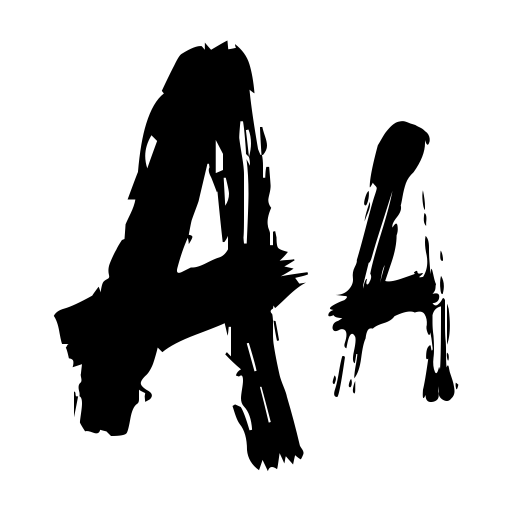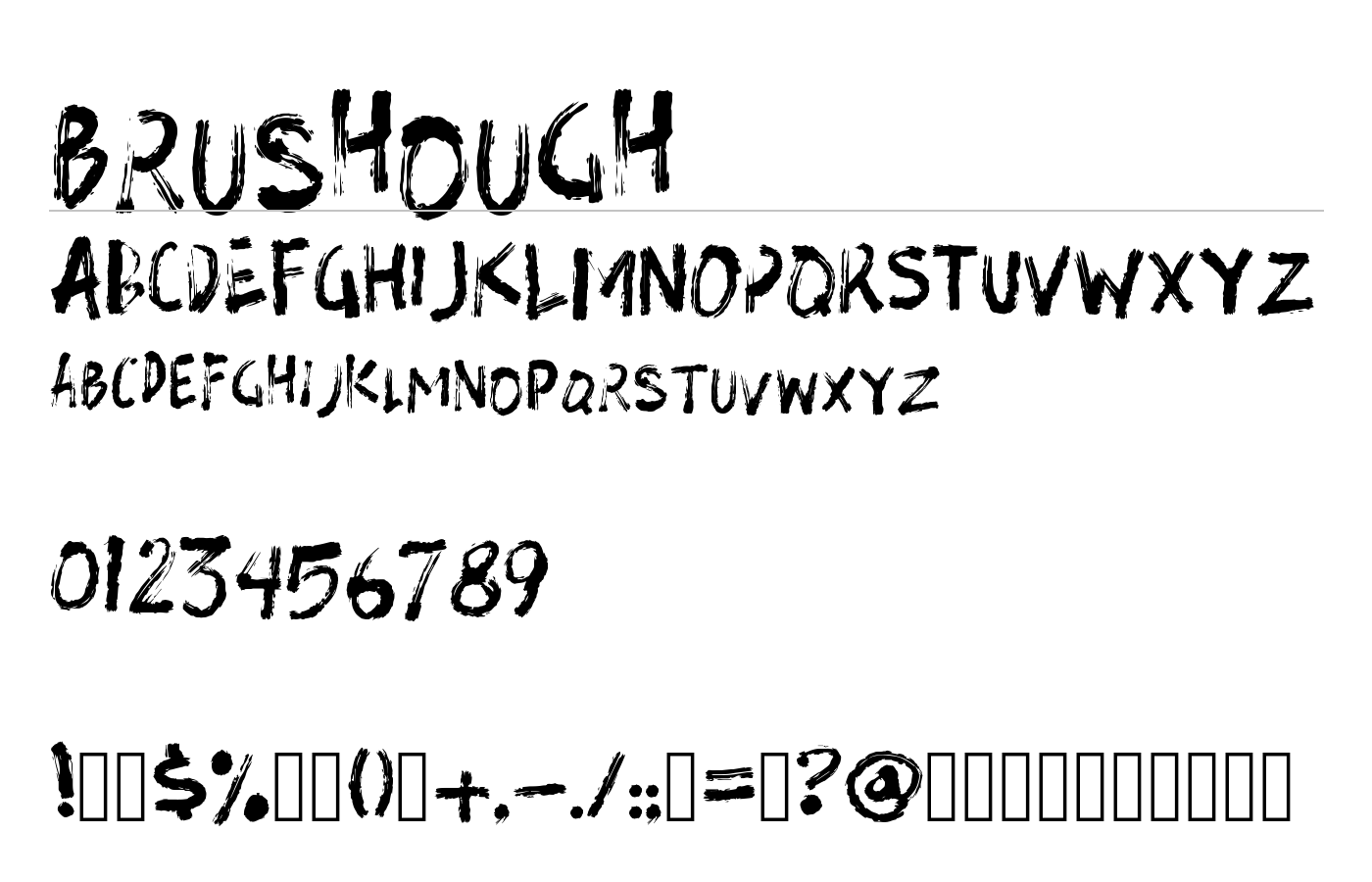
Brushough is a bold, expressive brush script font with a rough, hand-painted texture that brings a raw and artistic feel to any design. Its irregular, dynamic letterforms and high contrast strokes make it perfect for creative projects, posters, and branding that seek an energetic, informal, and eye-catching style. This font works well for headlines and display use where a distinctive, handcrafted look is desired.
brushough Font
About brushough Font